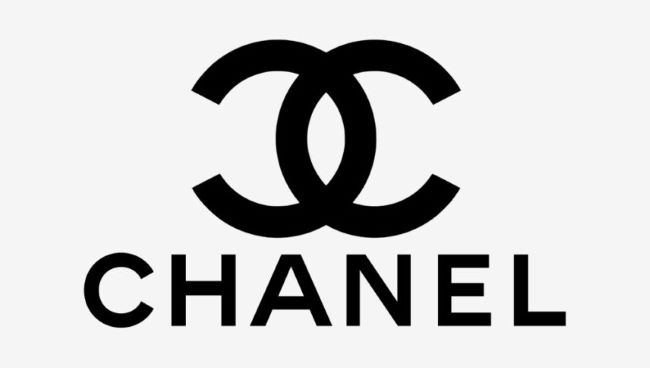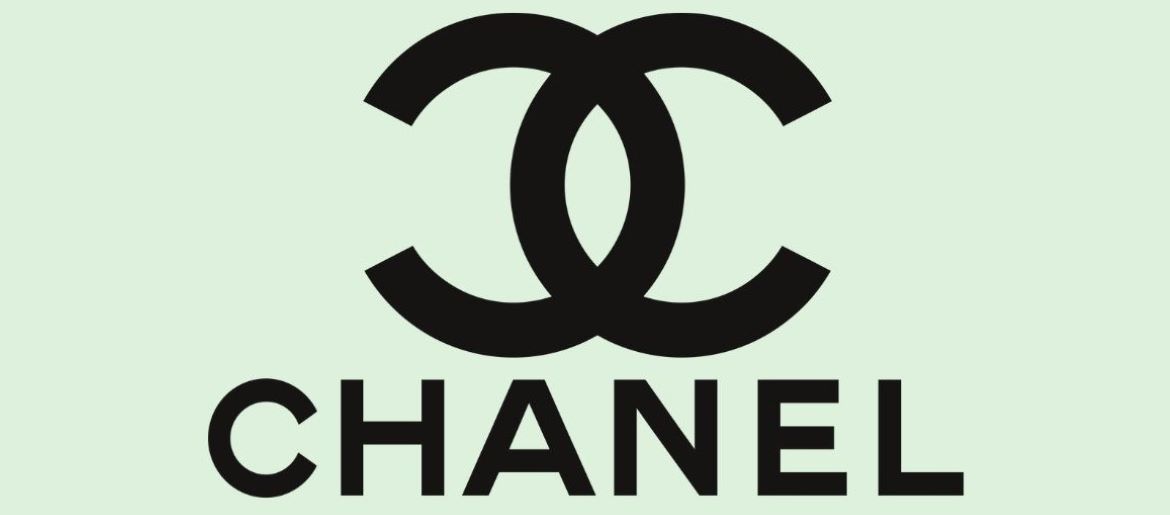
Chanel Font is one of the most recognizable elements of the brand’s visual identity. The Chanel logo font reflects the elegance and simplicity that have defined the fashion house for over a century. Its clean lines and minimal design perfectly match Chanel’s reputation for timeless luxury.
The Chanel logo font is based on a customized version of Couture, which is itself inspired by sans-serif typefaces like Didot. This style creates a balance between modern simplicity and classic refinement. The uppercase lettering of the Chanel logo font reinforces a bold yet understated aesthetic, making it effective across packaging, advertising, and digital platforms.
Unlike more decorative fashion fonts, Chanel Font relies on clarity and restraint, which allows the brand’s products and heritage to take center stage. It has become an essential part of Chanel’s branding, symbolizing luxury, sophistication, and consistency across all markets. You can also check our free fonts collection.